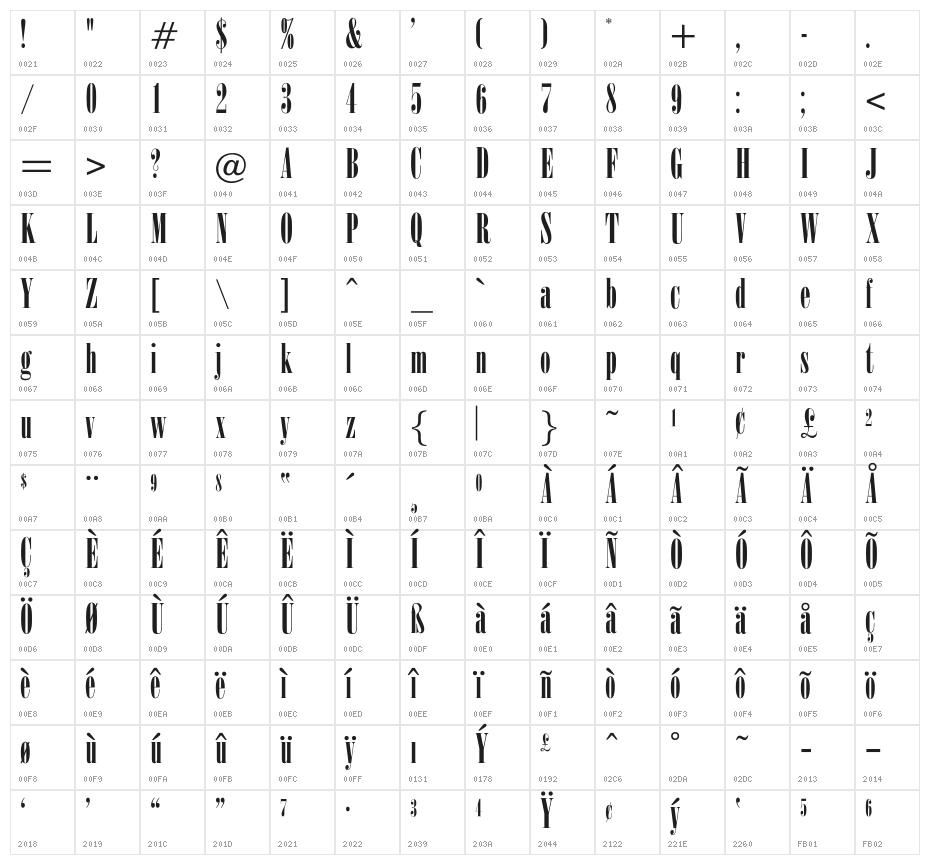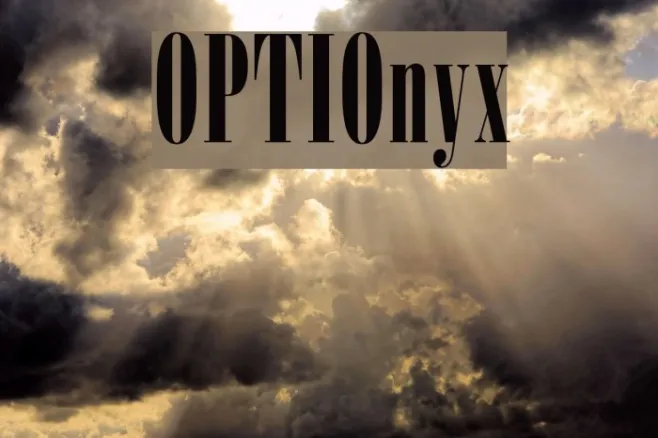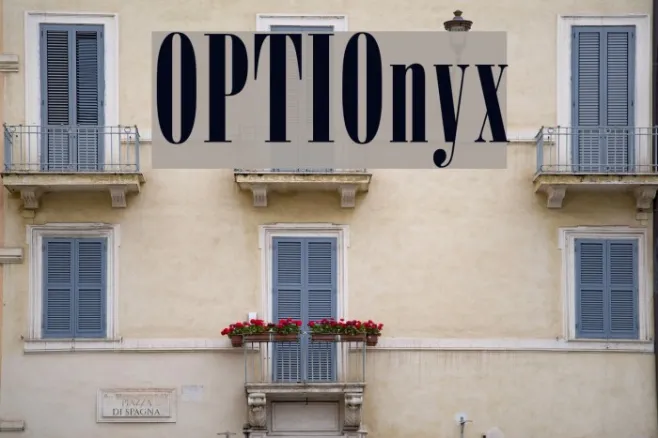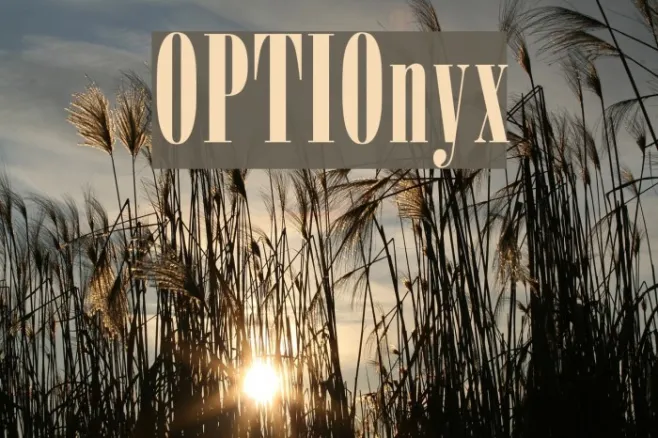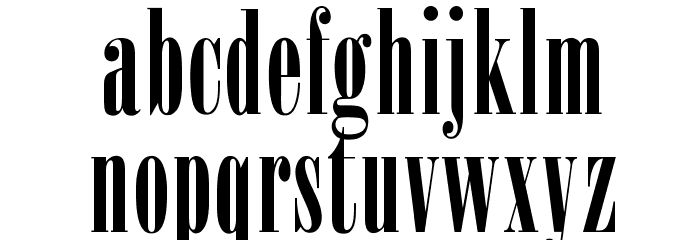
OPTIOnyx Font
OPTIOnyx Description
This font exhibits a bold and dramatic style with high contrast between thick and thin strokes, creating a striking visual impact. The uppercase letters are tall and narrow, with elongated serifs that add a touch of elegance and sophistication. The lowercase letters maintain a consistent style, featuring similar high contrast and narrow proportions. The numbers are designed to match the overall aesthetic, with a distinctive flair in their curves and angles. Special characters are crafted with the same attention to detail, ensuring a cohesive look across all glyphs. This font's unique characteristics make it ideal for projects that require a bold statement and a touch of vintage charm.
| Proposed Projects | Ideal for headlines, posters, branding, and editorial design where a bold and elegant statement is needed. |